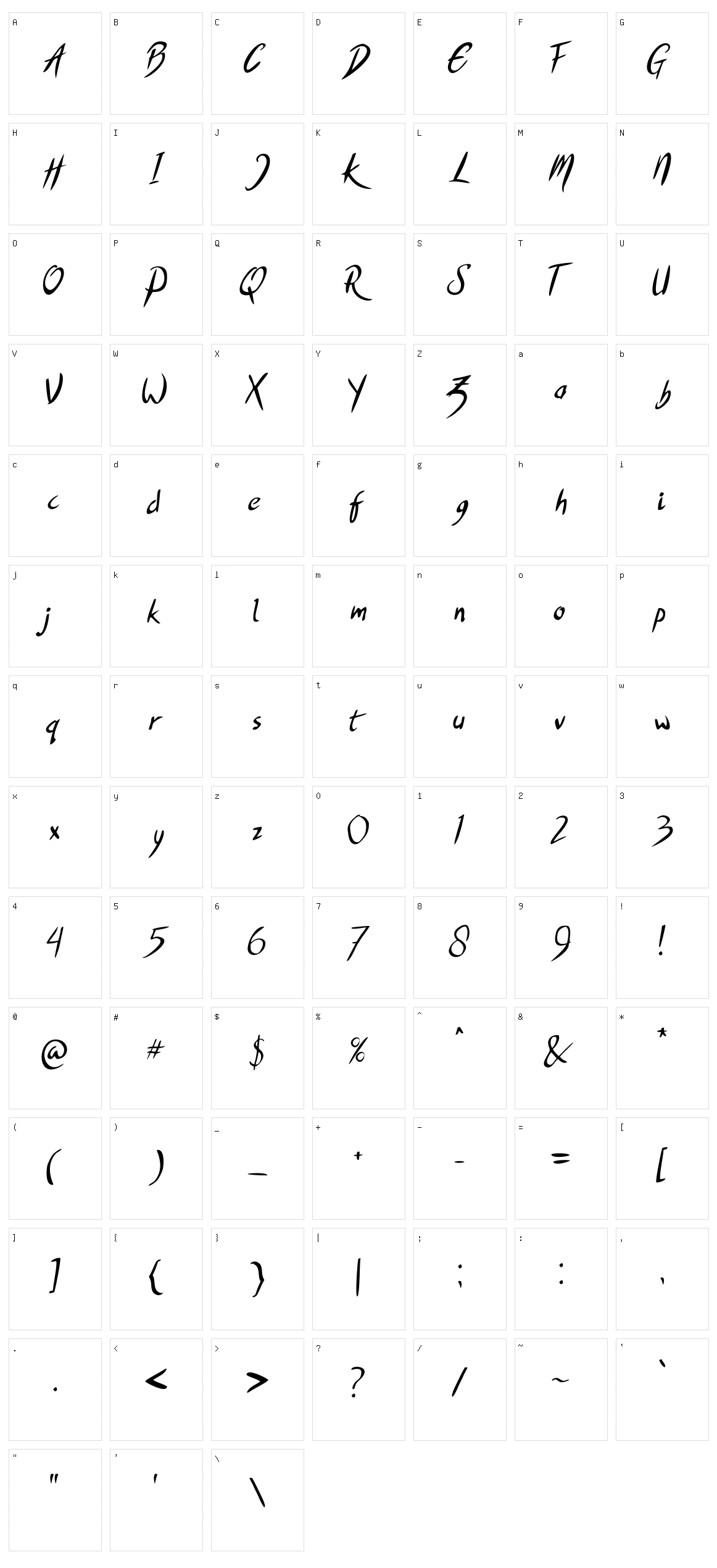
The free font Showbad is carefully designed by ijem, showcasing a thoughtful balance of creativity and usability and falls under the Script font style. When you download the ZIP file, it contains only 13.89 KB of font files, making it lightweight and quick to download. Please review the license details below to understand permitted usage and distribution rights. If license information is not available, we recommend using this font for personal projects only or contacting the author directly for commercial usage permissions.